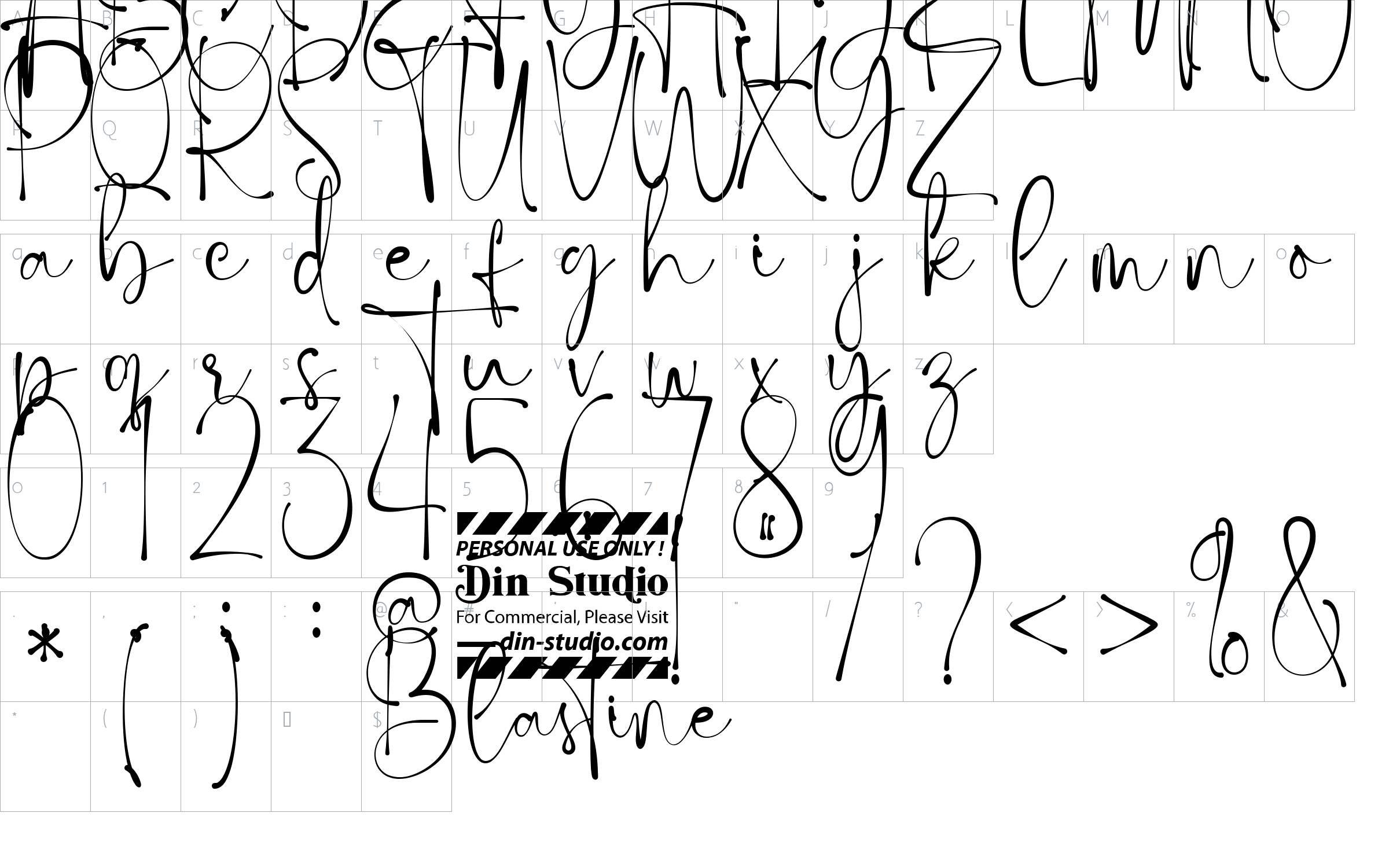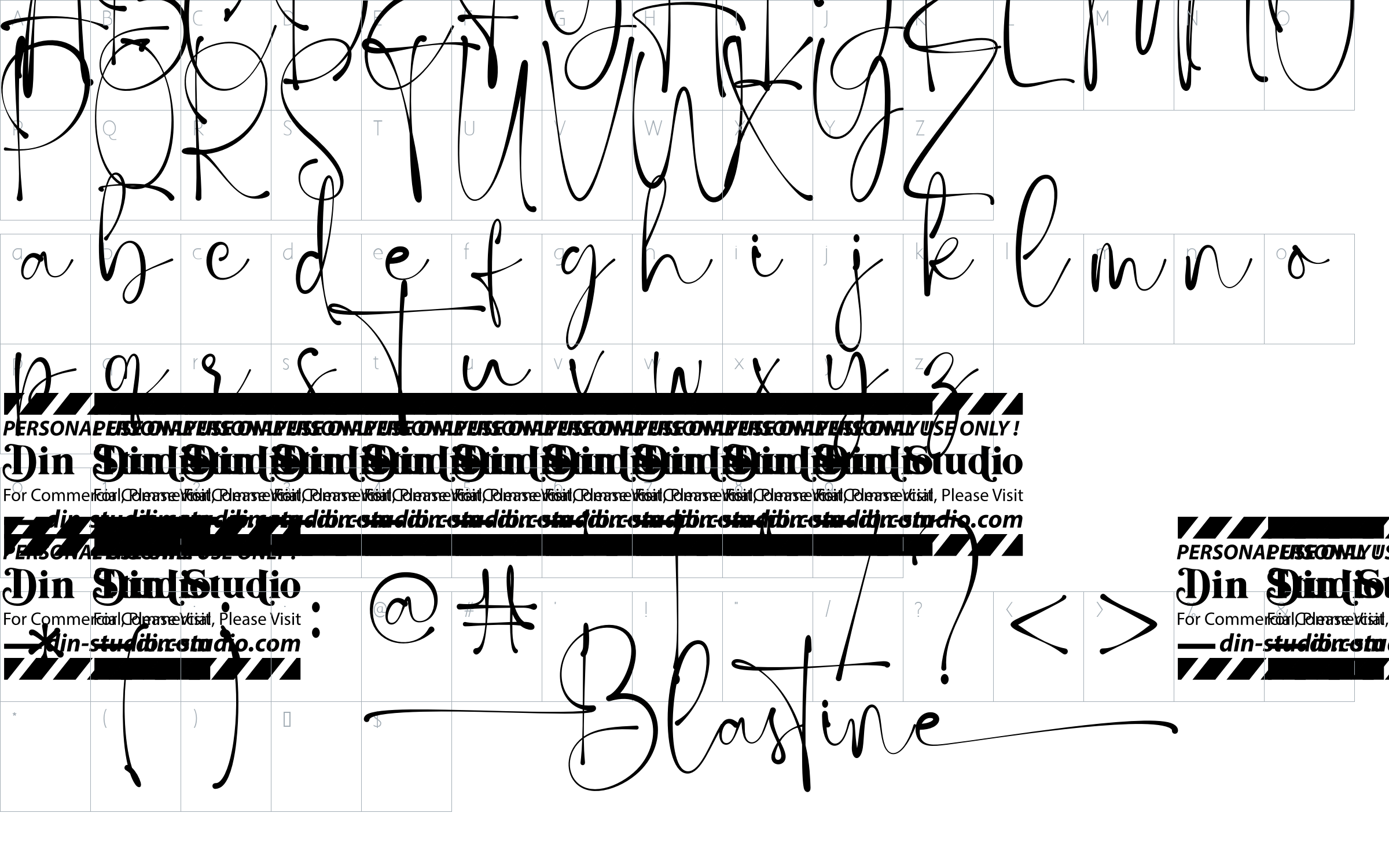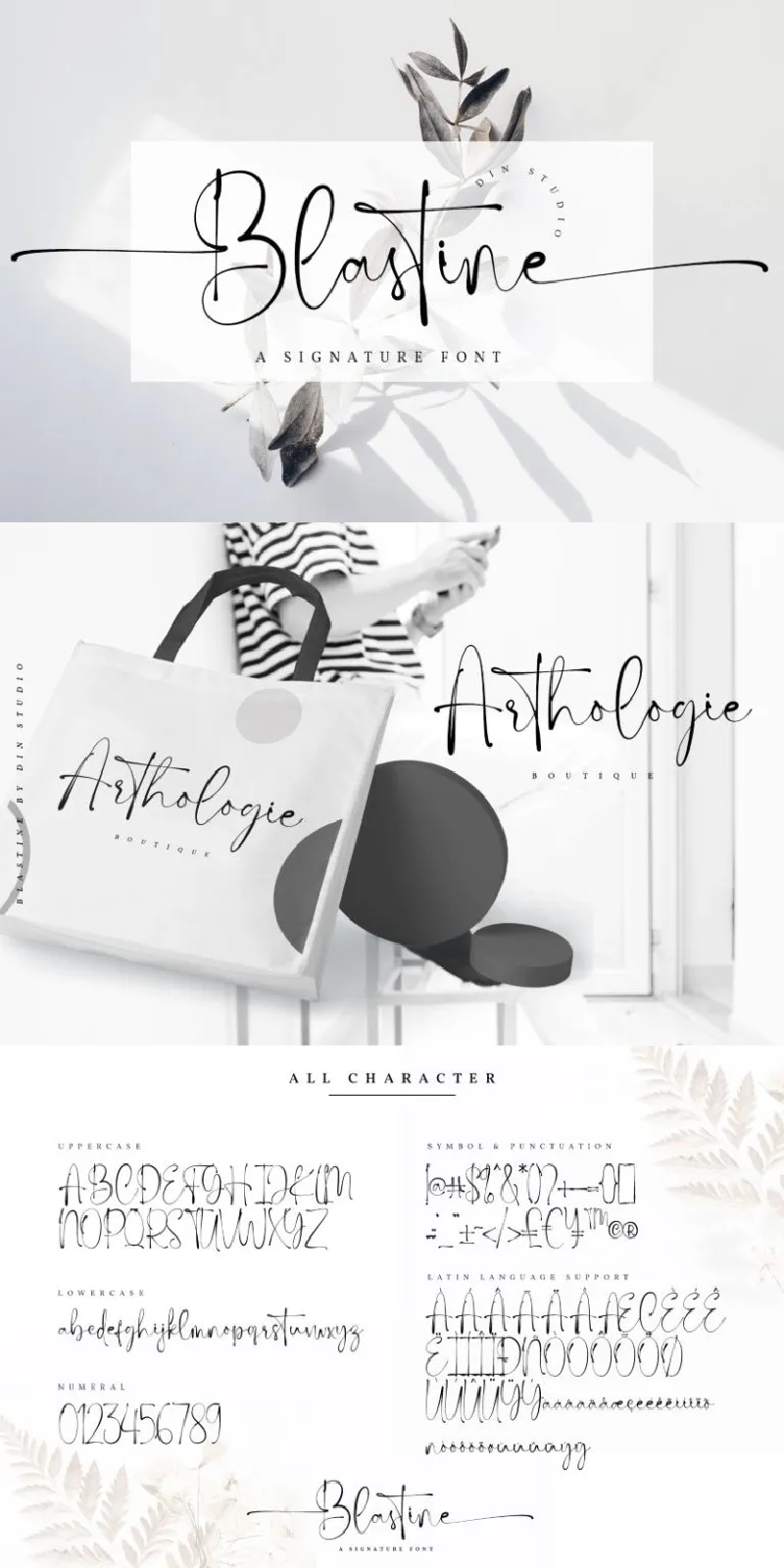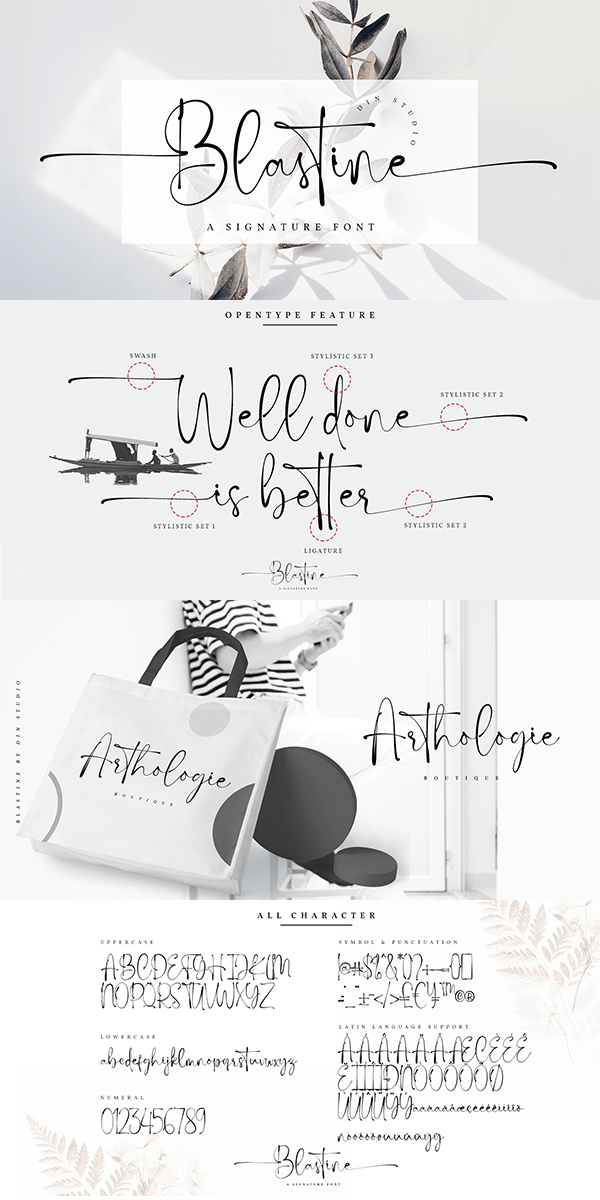
Blastine Font
About Blastine
Blastine is a beautiful signature font showing a modern attractive typeface made for any professional project brandings. It is best applied for logos, brandings, cards, packaging, book covers, wedding invitations, printed quotes, merchandise, and so on. See the previews above to get some inspiration on how you can use them. Happy designing!
-Many Swashes